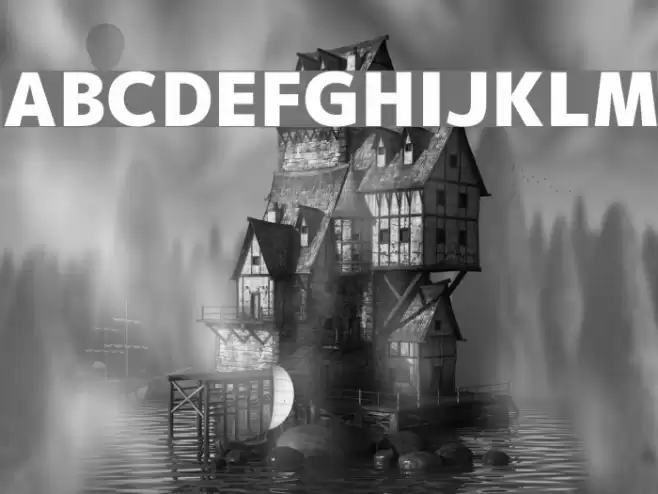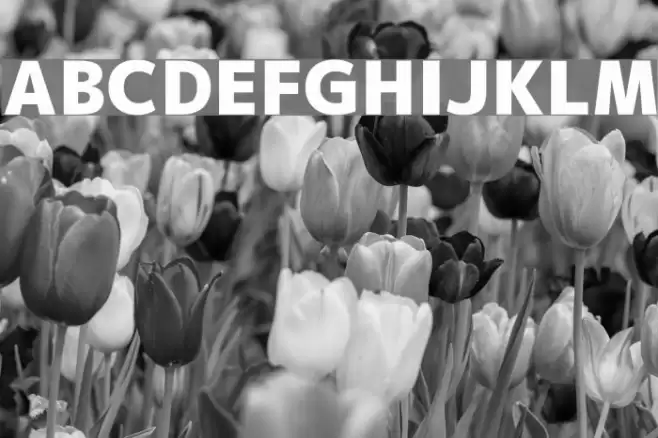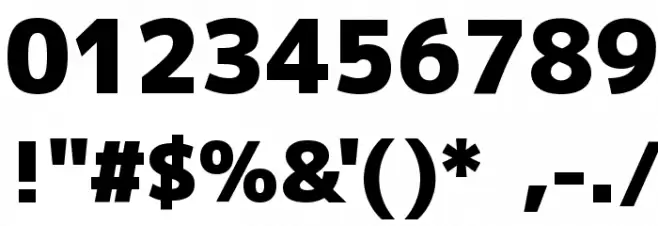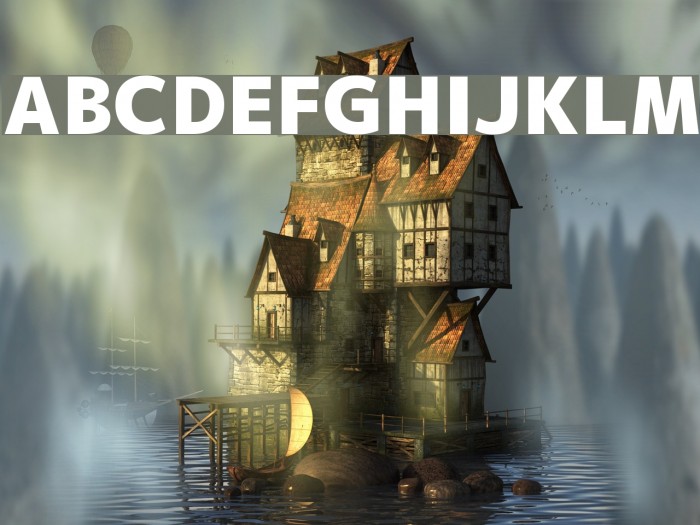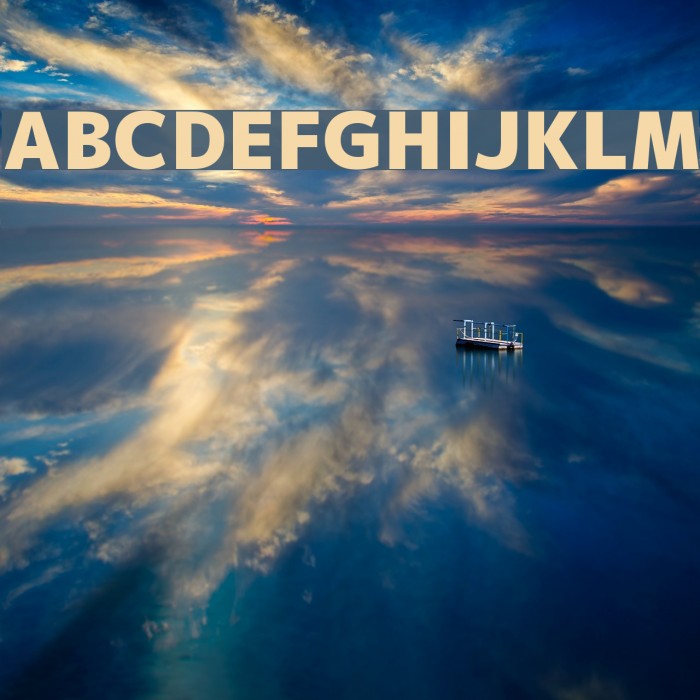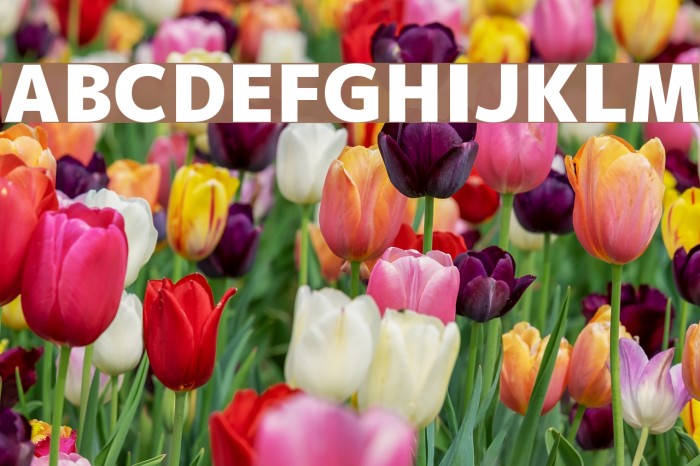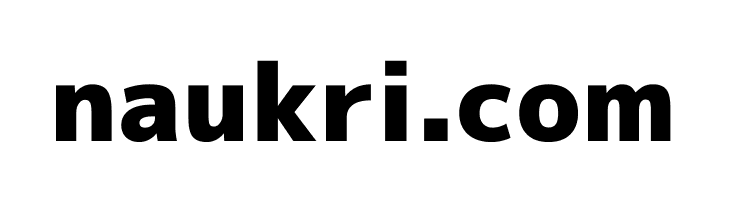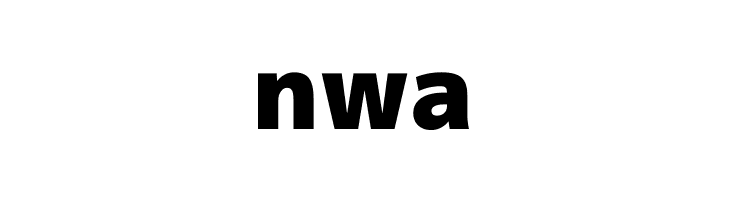
M+ 2p black Font
M+ 2p black Description
This font features bold, strong lines with a modern and impactful appearance. The characters are uniformly thick, providing a sense of stability and confidence. The uppercase letters are prominent and assertive, while the lowercase letters maintain a consistent weight, enhancing readability. The numerals are clear and straightforward, making them ideal for data presentation. Special characters are well-defined, ensuring versatility in various contexts. Overall, this font exudes a contemporary feel, suitable for projects that require a bold statement.
A bold, modern font with strong lines and high readability from Uncategorized fonts.
- Proposed Projects: Ideal for branding, headlines, posters, and any design requiring a strong visual impact.